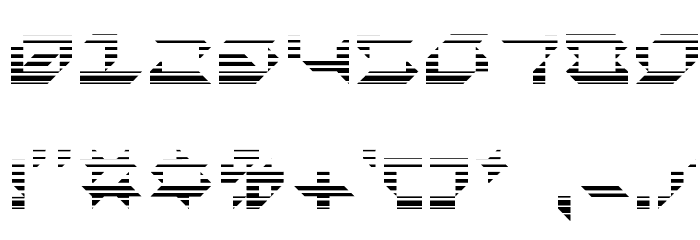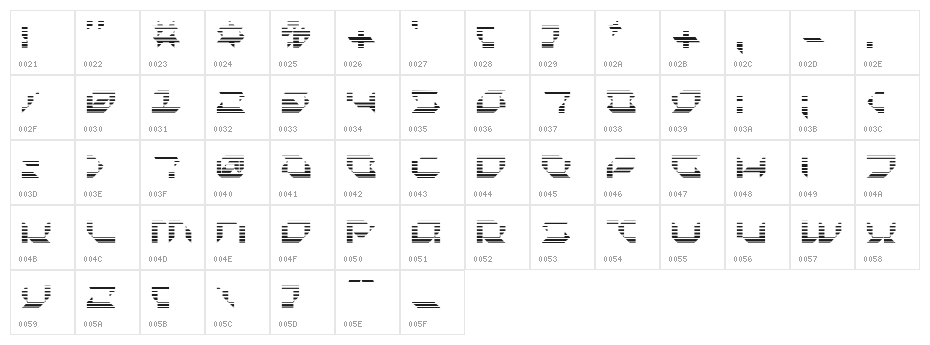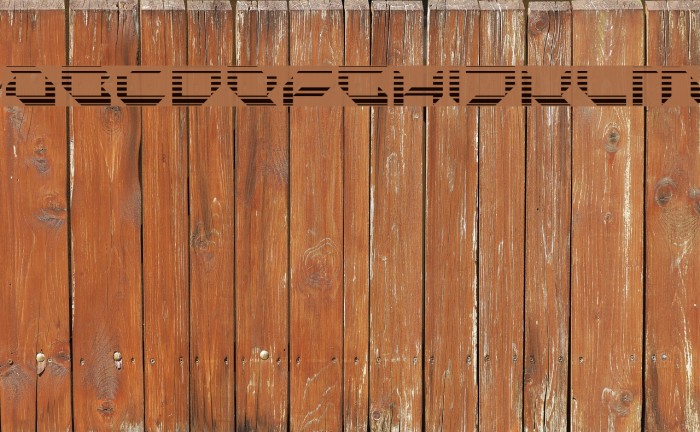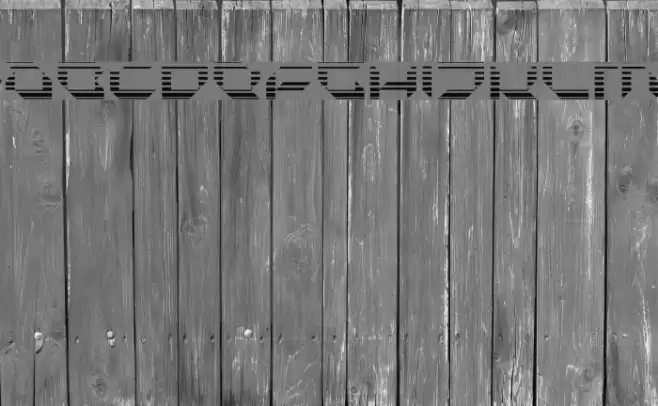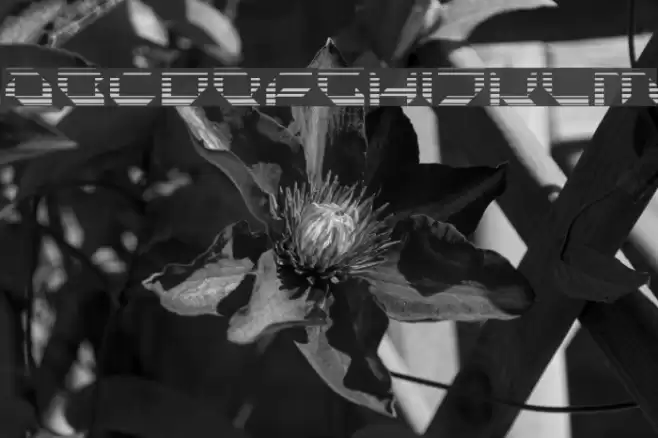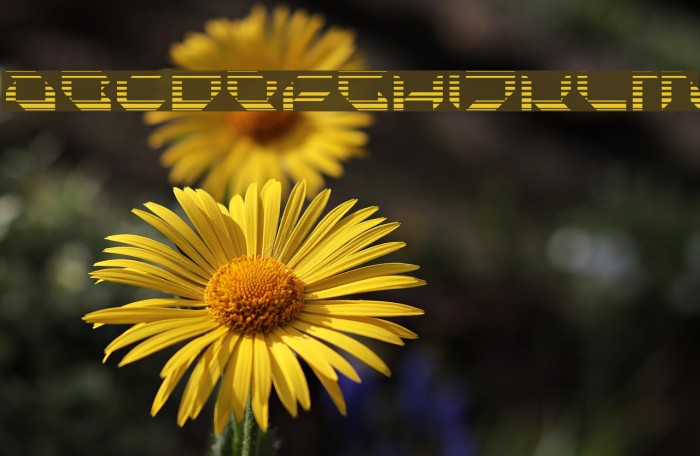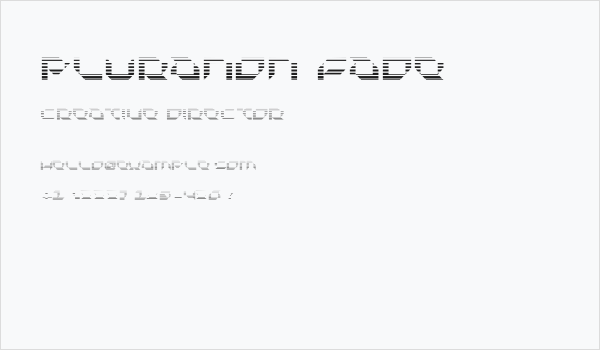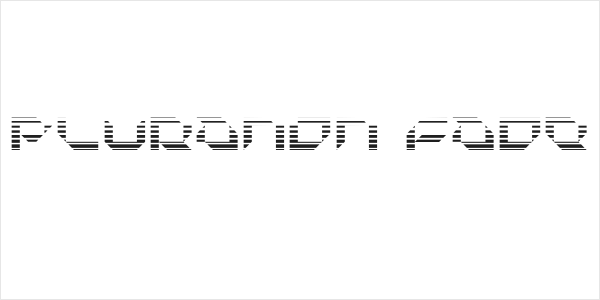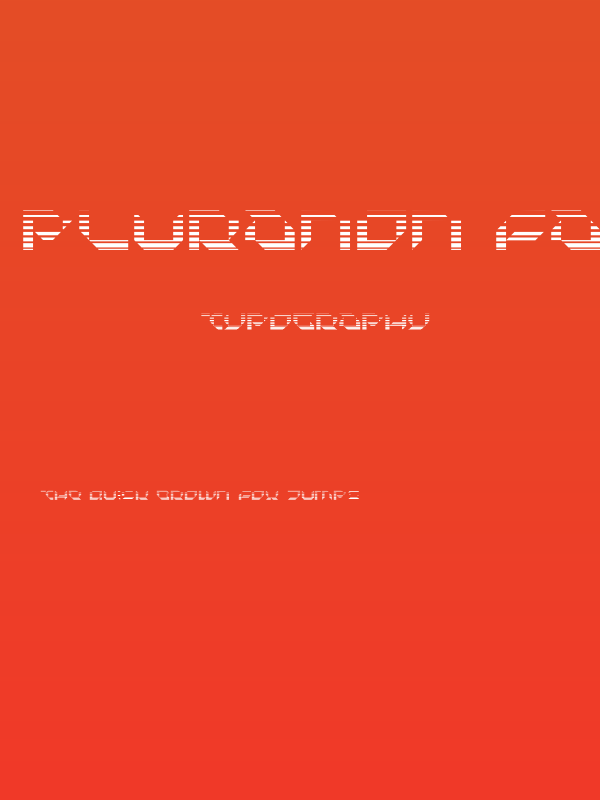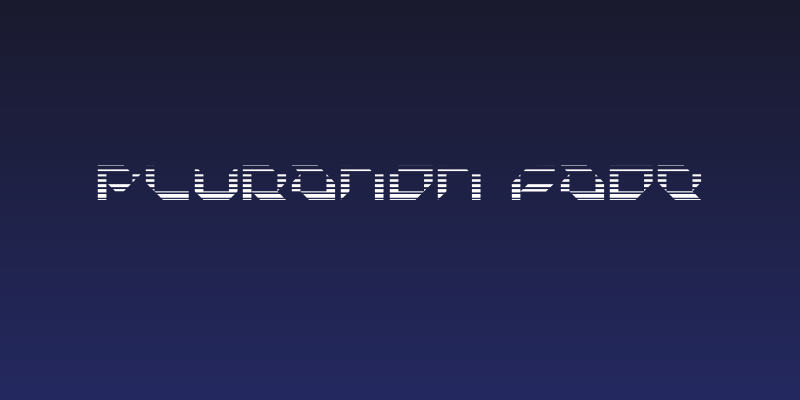
Pluranon Fade Font
Pluranon Fade Description
This font features a futuristic and digital aesthetic, characterized by its unique horizontal line pattern that creates a fading effect across each character. The design is geometric and angular, with each letter and number appearing as if constructed from a series of parallel lines. This gives the font a dynamic and modern feel, making it stand out in digital and tech-related contexts. The uppercase and lowercase letters maintain a consistent style, while the numbers and special characters are crafted to match the overall theme, ensuring visual cohesion across all elements.